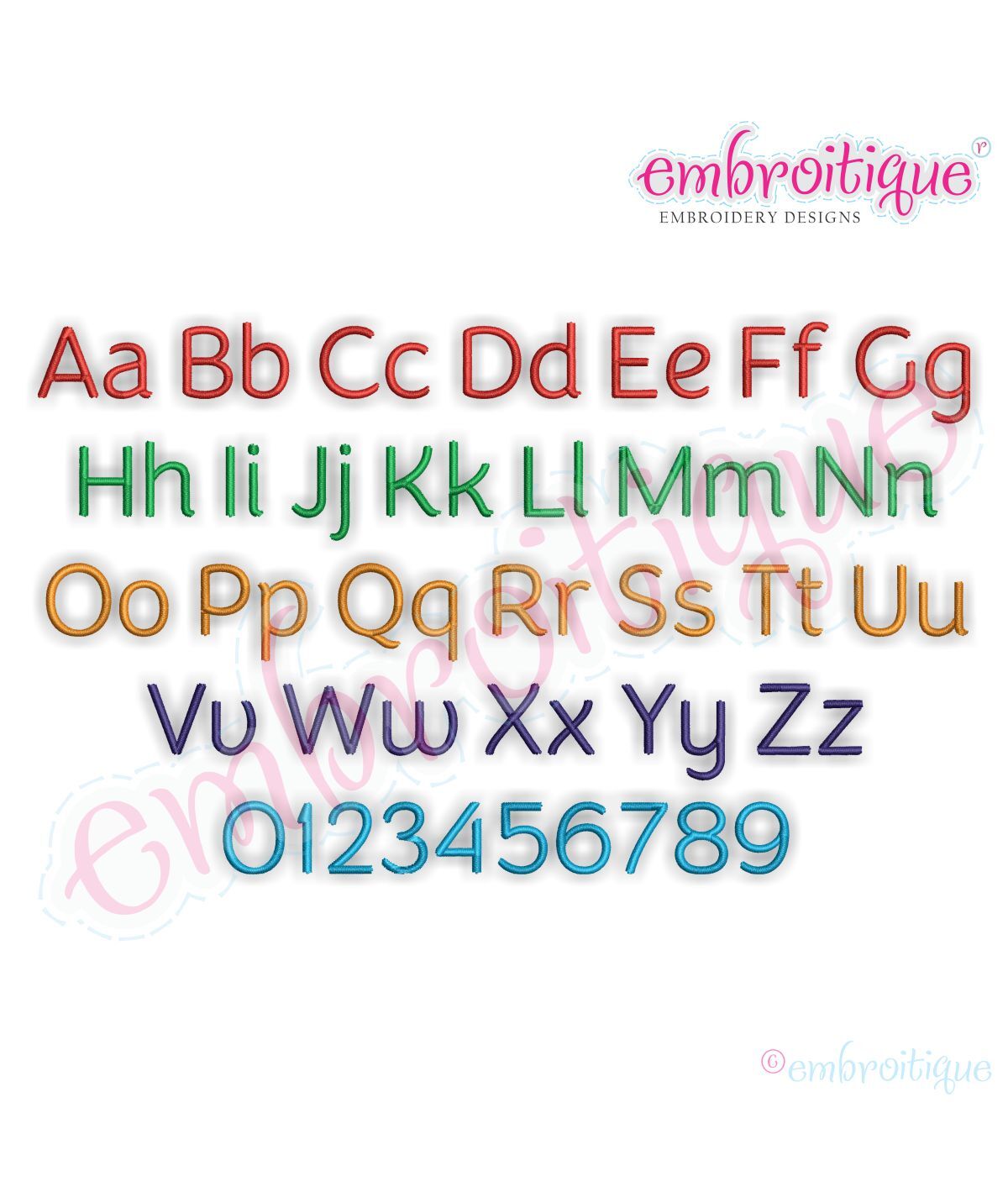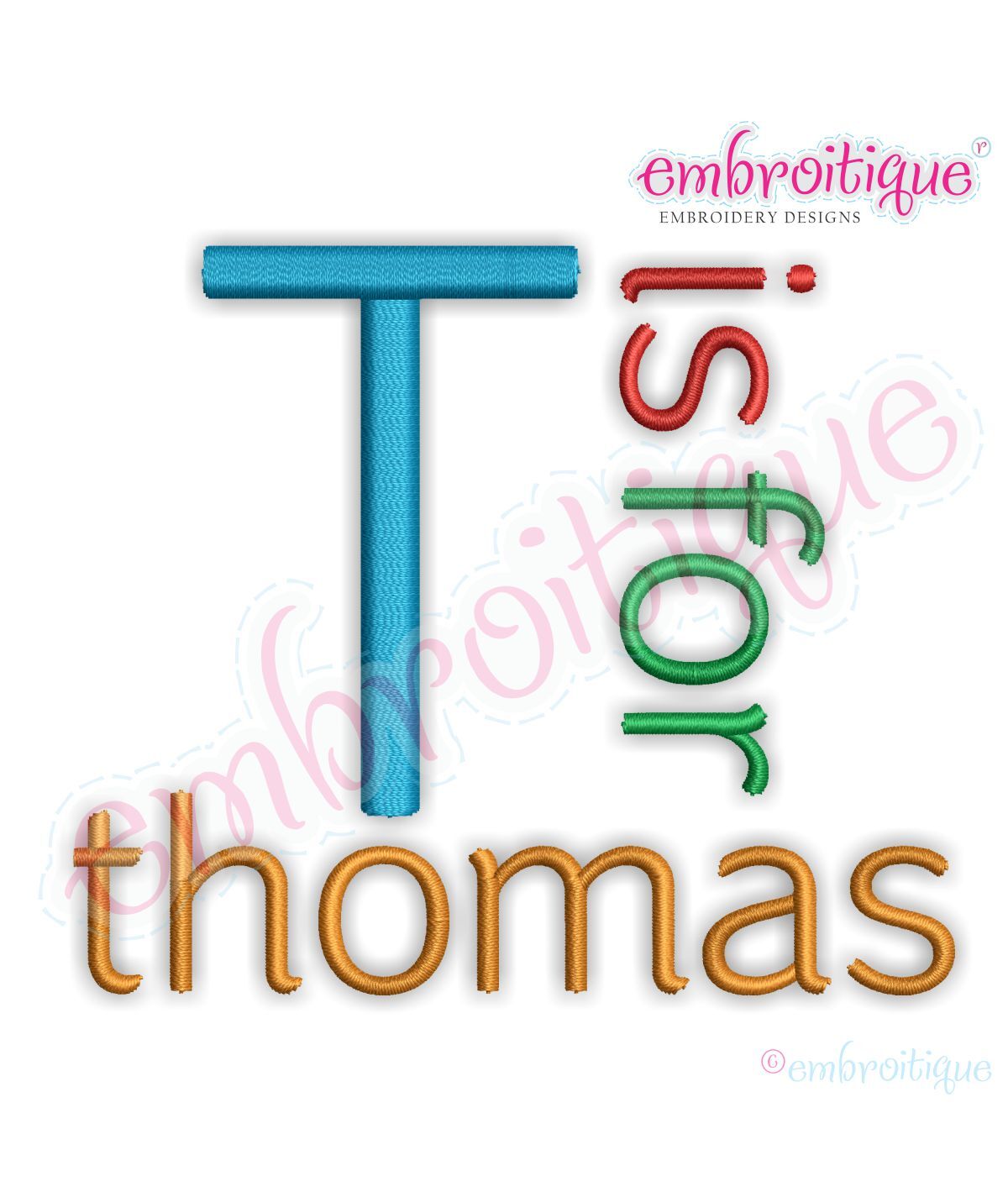
Thomas Monogram Set - Small - Perfect for Boys and Girls - .5", 1", 1.5", 2"
Our Thomas monogram set will be a go-to set for years to come! Perfect for boys & girls.
We love the smooth curves of each letter - simple lettering with lots of interest!